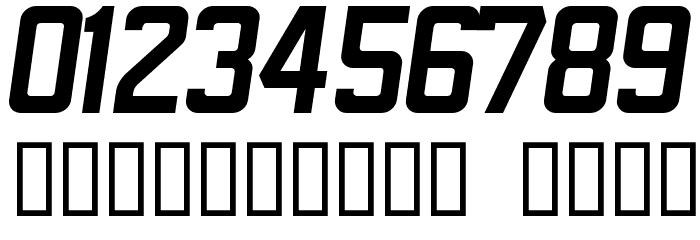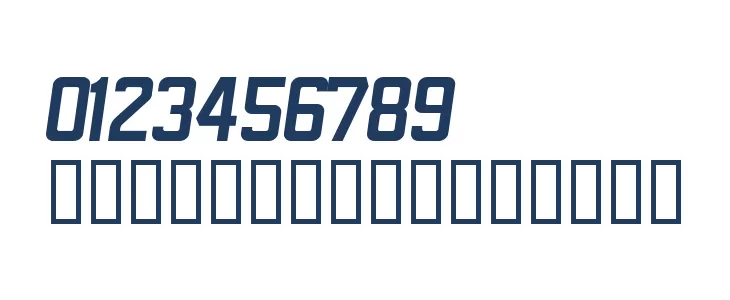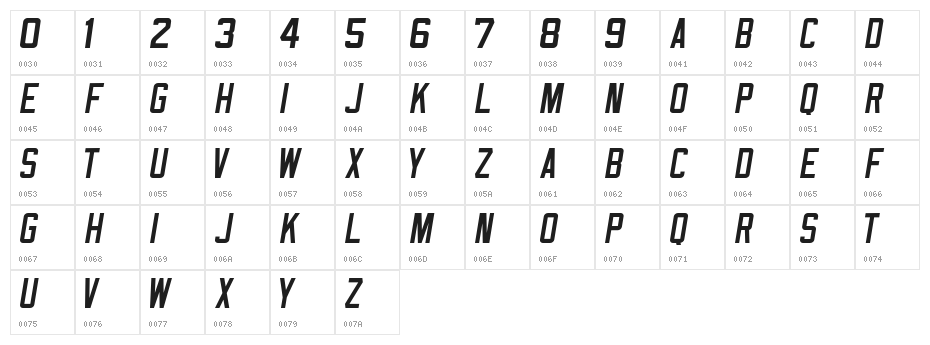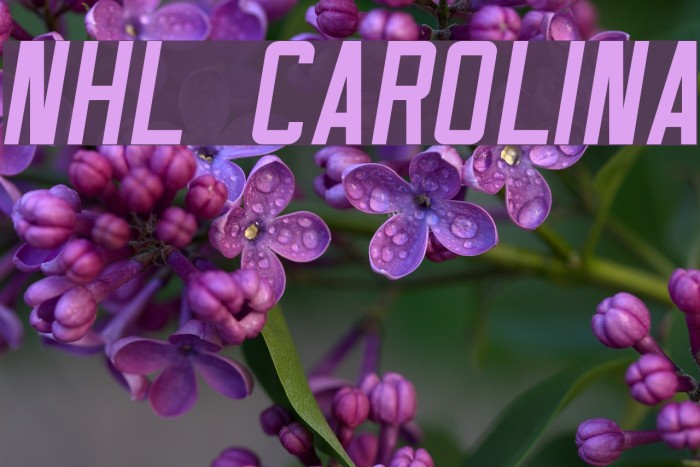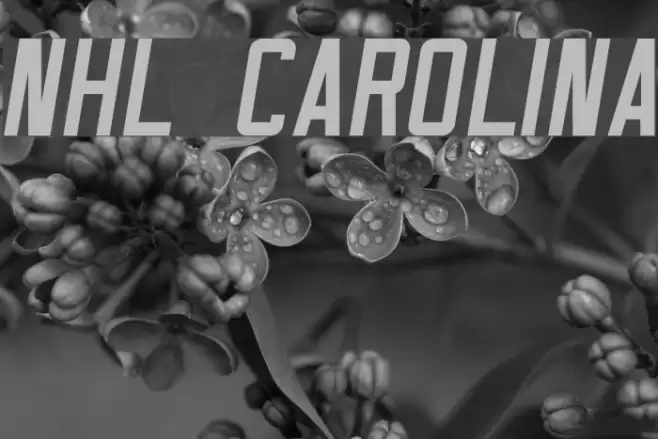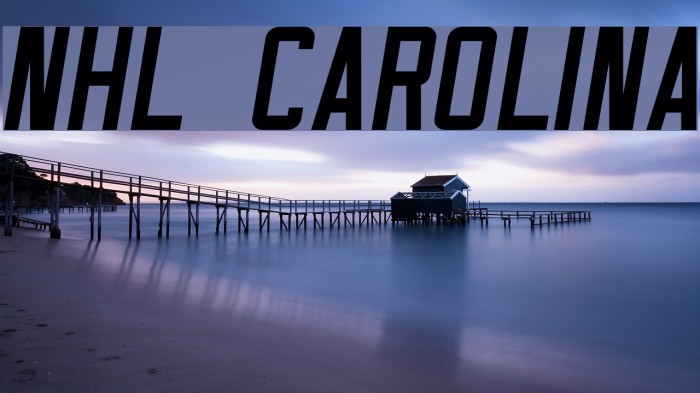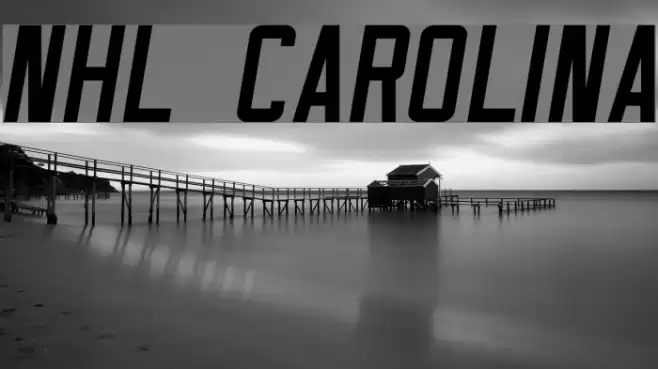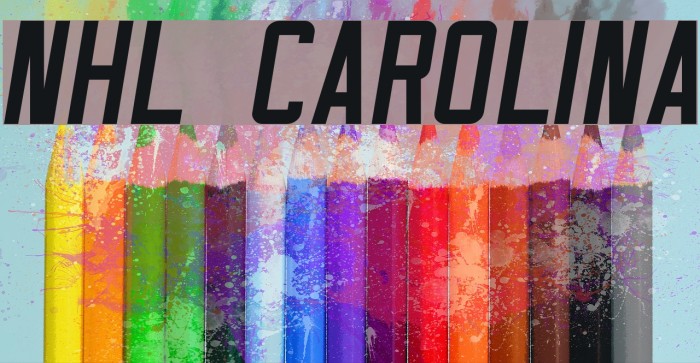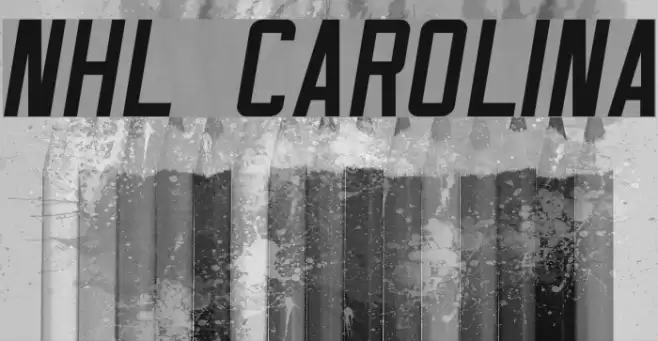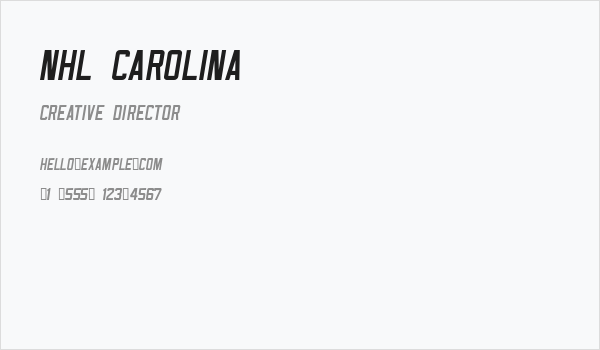
NHL Carolina Font
NHL Carolina Description
This font features a bold, dynamic style with a strong presence. The characters are slightly italicized, giving a sense of motion and energy. The uppercase letters are tall and narrow, with sharp angles and clean lines, while the numbers maintain a consistent height and width, ensuring readability. The overall design is modern and sleek, suitable for sports-related themes or dynamic branding. The absence of lowercase letters and special characters suggests a focus on impactful, straightforward communication.